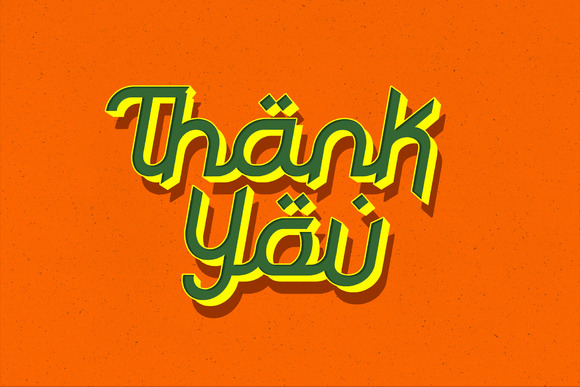
Introduction to Rodja Font
Have you ever stared at a blank canvas, struggling to bring your creative vision to life? As a designer, you’ve likely found yourself in this situation, searching for the perfect font to elevate your project. It’s in these moments of uncertainty that the discovery of a unique and captivating font can be a game-changer.
Enter the Rodja Font, a stunning script font that seamlessly blends the elegance of Arabic calligraphy with the simplicity of Latin letters. With its high-quality design and transparent background, this font is a design resource that can add a touch of sophistication to any creative project. Whether you’re working on a branding project or a free download for a client, the Rodja Font is sure to make your work stand out.
As a valuable addition to any designer’s toolkit, the Rodja Font offers a level of versatility and creativity that is hard to find in other fonts. Its unique blend of styles makes it the perfect choice for designers looking to create something truly special.
Key Features of Rodja Font
Honest Review: Rodja Font
As a designer, I’m always on the lookout for high-quality design resources to enhance my creative projects. Recently, I came across the Rodja Font, and I’m excited to share my honest review with you.
- ✨ High-quality font with crisp and clear letterforms.
- ✨ Offers a transparent background, making it easy to customize and pair with other design elements.
- ⚠️ Limited font weights and styles, which may not be ideal for complex design projects.
- ⚠️ May not be suitable for professional printing, as it’s primarily designed for digital use.
Overall, I’m impressed with the Rodja Font’s clean design and versatility. While it may have some limitations, it’s a great resource for designers working on smaller creative projects or personal projects. If you’re looking for a high-quality font for free, the Rodja Font is definitely worth checking out.
Tips for Getting the Most Out of Rodja Font
When using Rodja Font, consider the following tips: Use a transparent background to make your text stand out, experiment with different font sizes and styles to match your design needs, and pair the font with high-quality images to create a visually appealing design.
Rodja Font is commonly used in creative projects such as logos, brochures, and business cards. It’s also a popular choice for social media graphics and presentations. With its high-quality design and free download option, Rodja Font is a versatile design resource that can be used in a variety of applications.